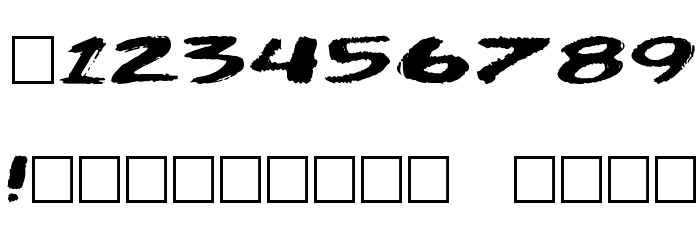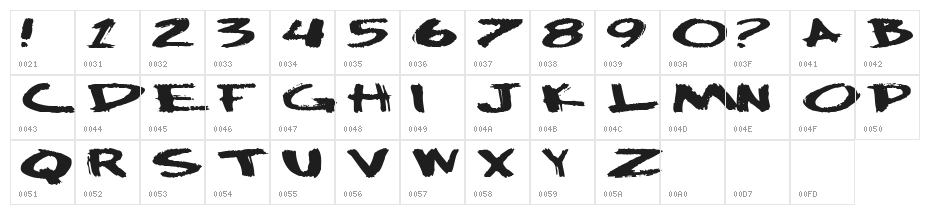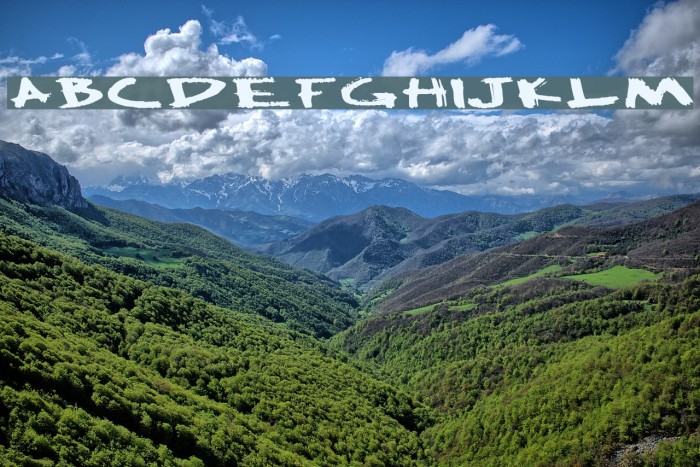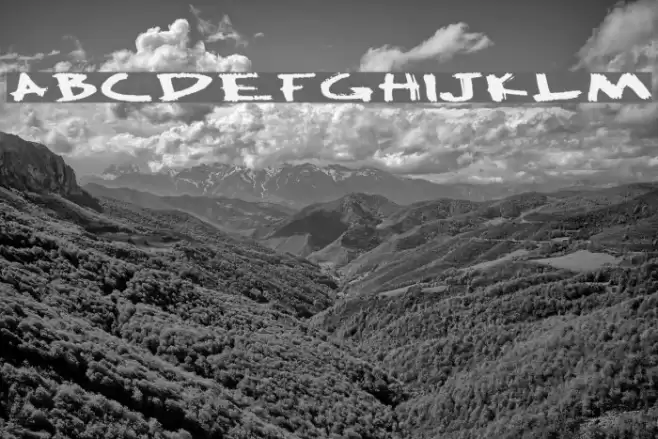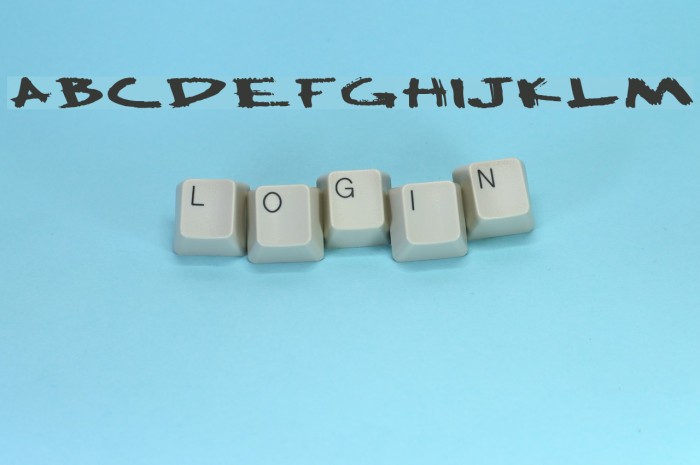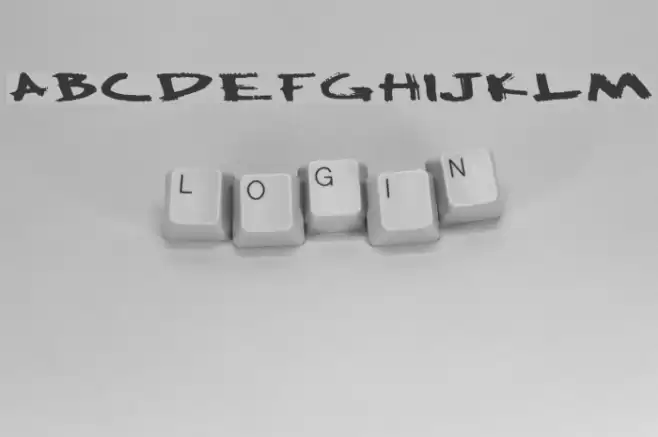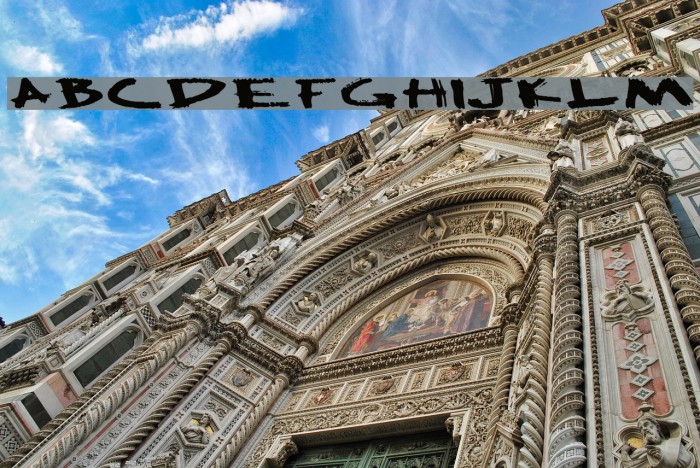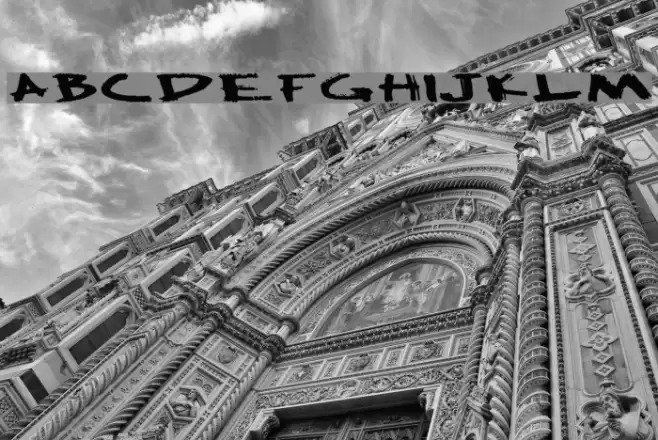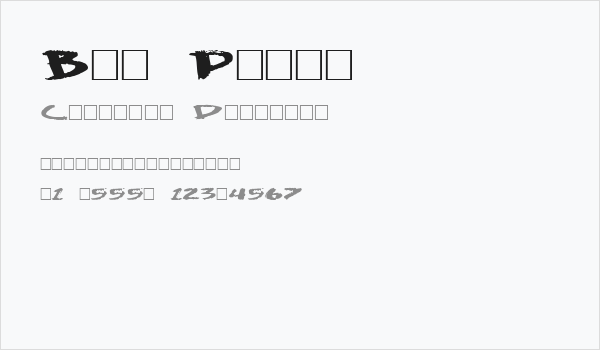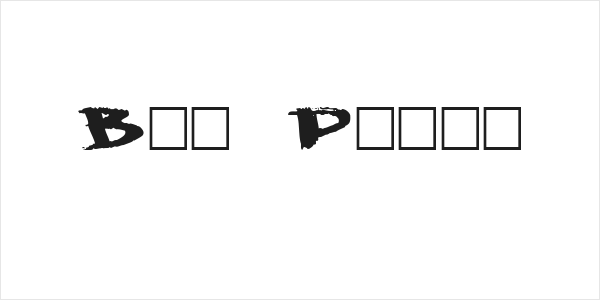
Big Plain Font
Big Plain Description
This font features a bold and dynamic brushstroke style, giving it an energetic and expressive appearance. The uppercase letters are crafted with a sense of movement, as if painted with a thick brush, creating a sense of urgency and impact. The numbers follow the same style, maintaining consistency throughout. The strokes are uneven, adding a hand-drawn, artistic feel to the characters. This font is ideal for projects that require a strong visual presence and a touch of creativity. It is particularly suitable for headlines, posters, and branding materials where a bold statement is needed.